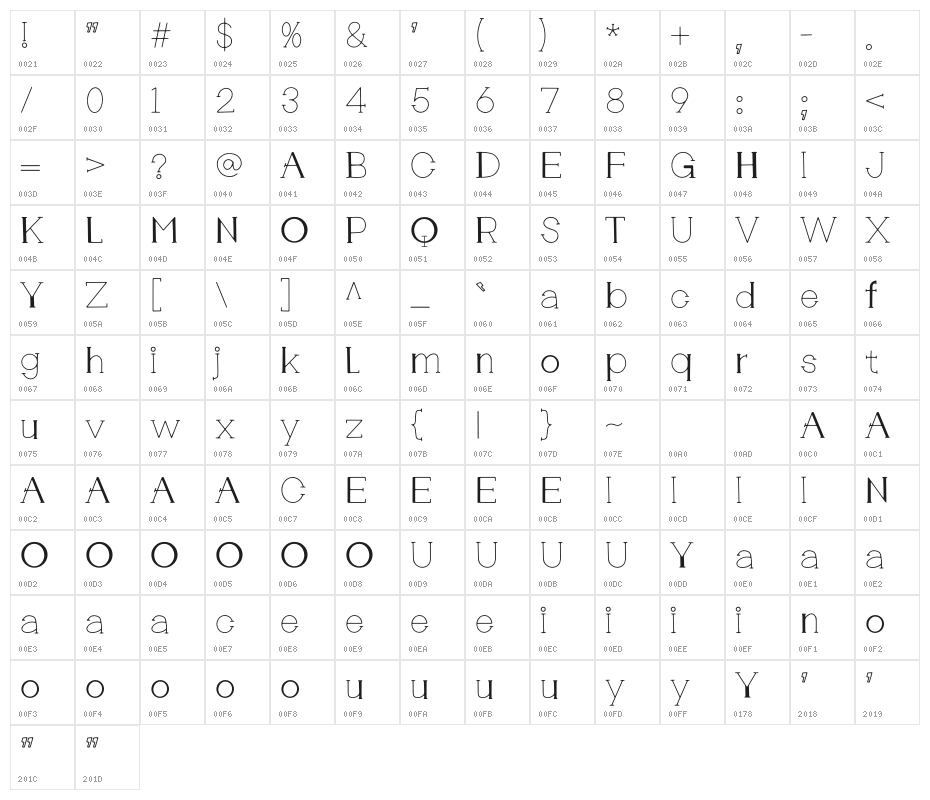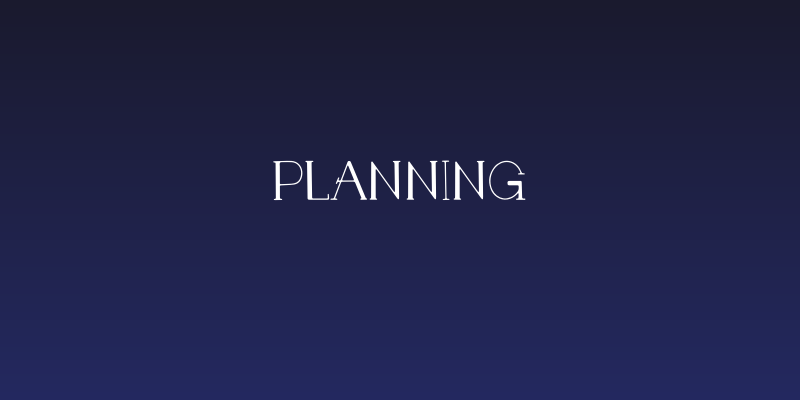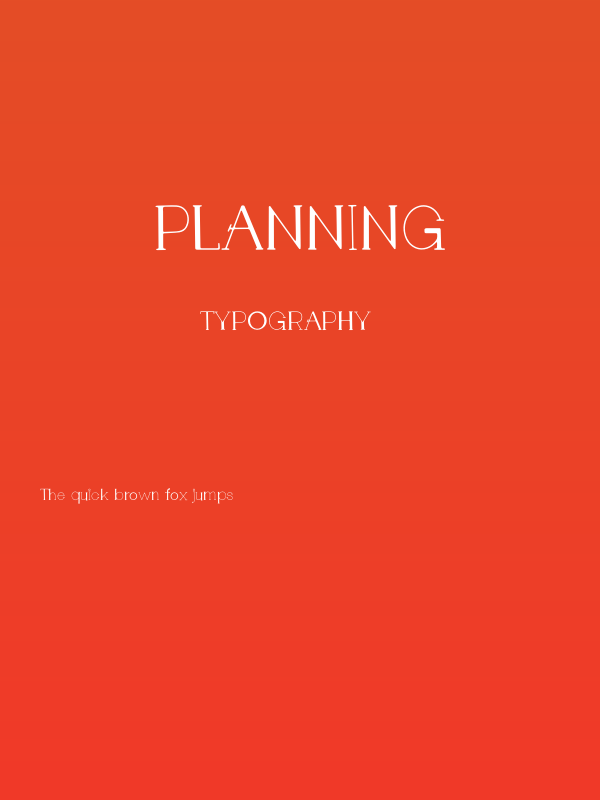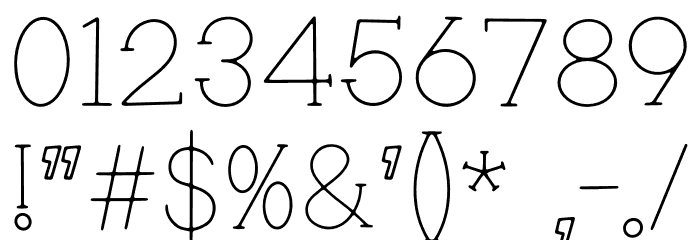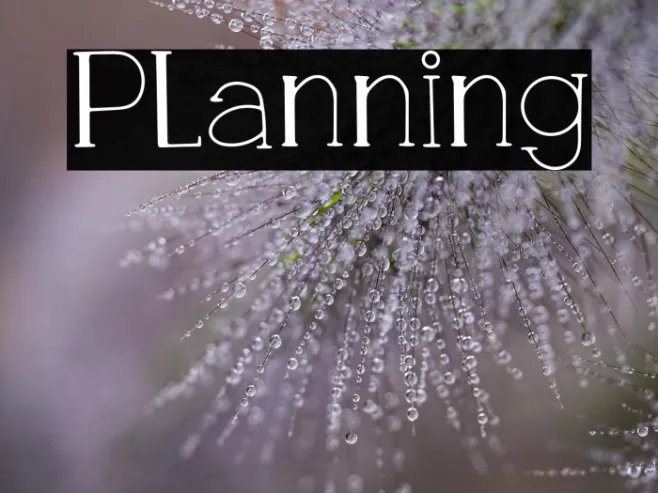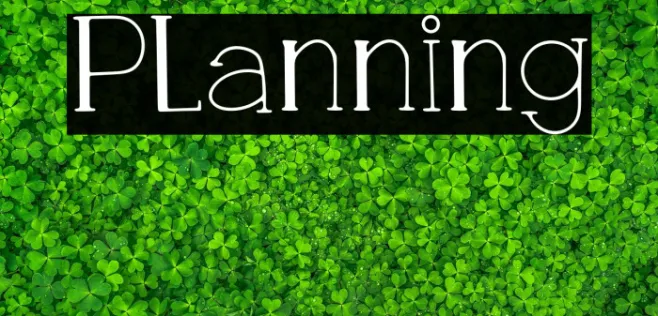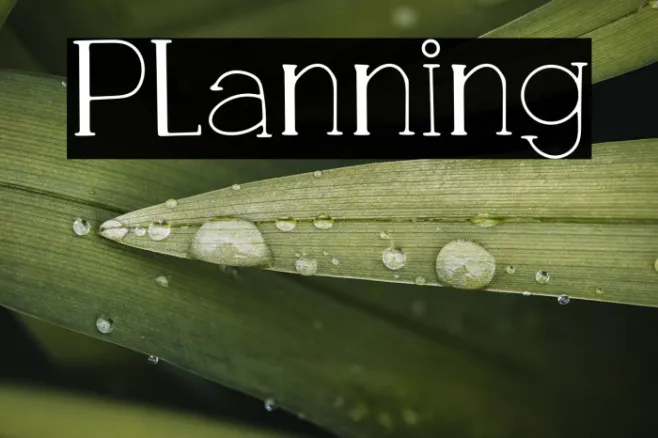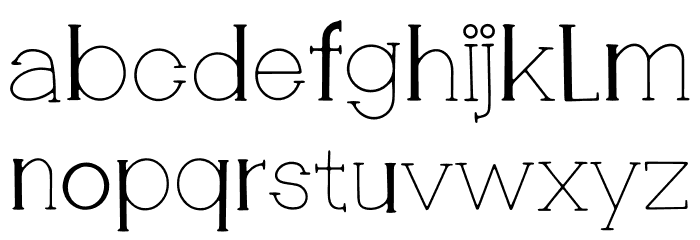
Planning Font
Planning Description
This font features a unique blend of modern and vintage elements, characterized by its distinct geometric shapes and playful serifs. The uppercase letters exhibit a strong presence with their bold lines and subtle curves, while the lowercase letters maintain a more whimsical and approachable feel. The numerals are consistent with the overall style, offering a clean and readable appearance. Special characters are thoughtfully designed, adding to the font's versatility. The combination of thick and thin strokes provides a medium contrast, enhancing its visual interest without compromising legibility.
| Overall Style | Modern, Vintage |
| Proposed Projects | Ideal for branding projects, editorial design, and creative advertising campaigns where a distinctive and stylish typeface is desired. |